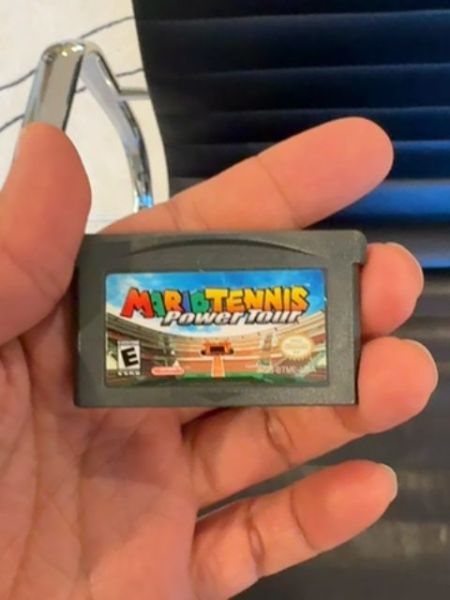
Mario Tennis Power Tour
Mario Tennis Power Tour is a sports simulation video game focused on tennis. Players can compete in tennis matches using characters from the Mario franchise, and the game incorporates both sports mechanics and RPG elements.
2005
The typography used for the title features a bold, playful font typical of the Mario franchise, with vibrant colors and a three-dimensional effect that gives depth. The font style reflects the dynamic and energetic nature of the game, blending well with the overall packaging design.
The packaging is compact, designed for a small game cartridge, featuring vibrant and colorful graphics. The front label showcases dynamic imagery of a tennis court with the Mario logo prominently displayed.
- Part of the Mario Tennis series.
- Combines sports and RPG elements for gameplay.
- Released for the Game Boy Advance.